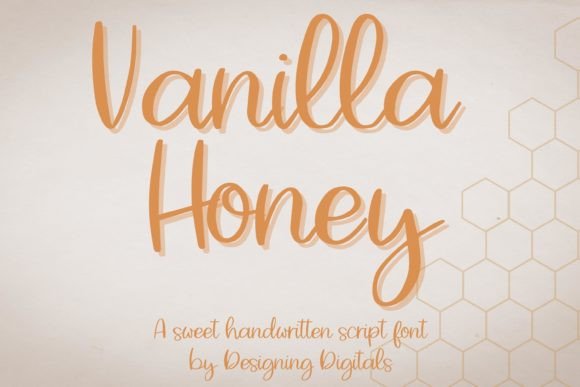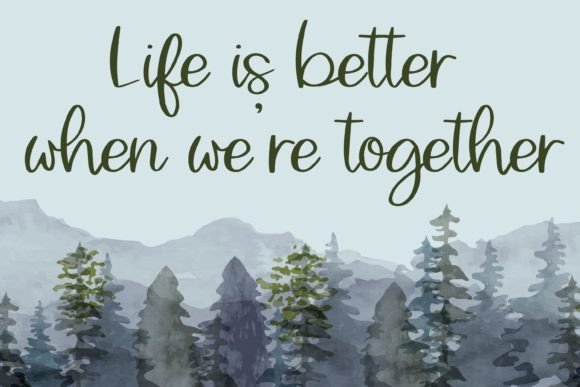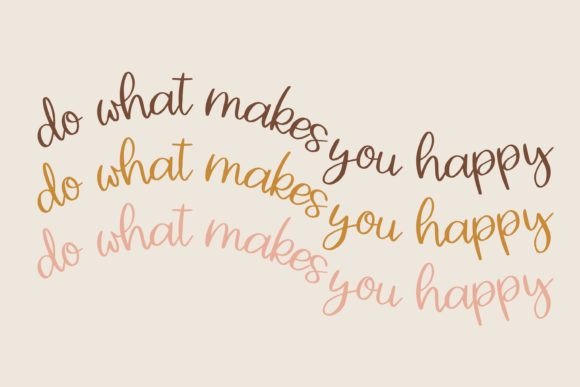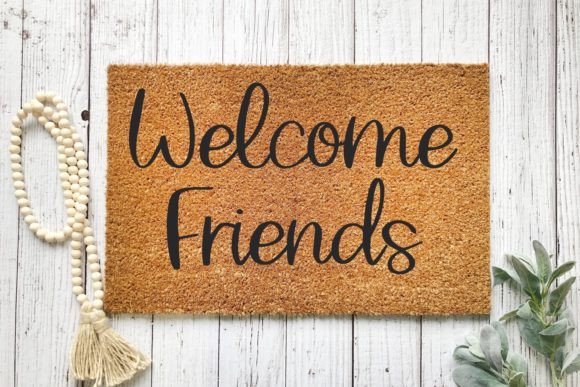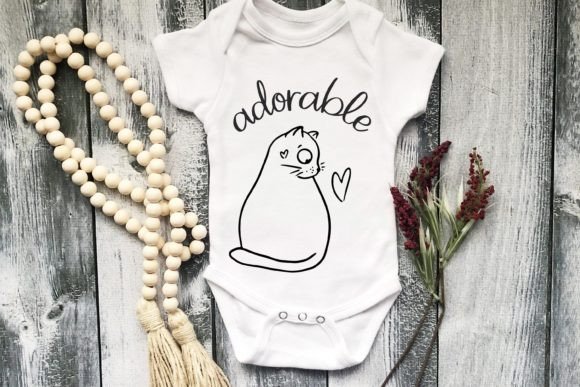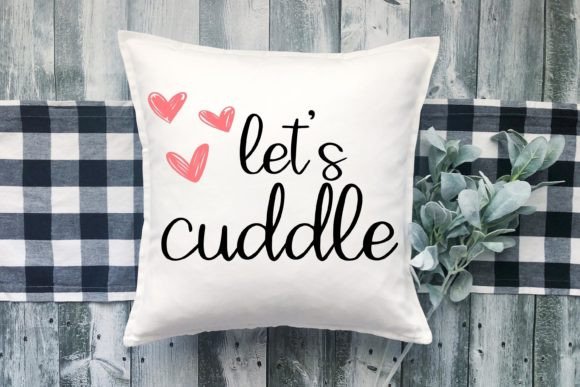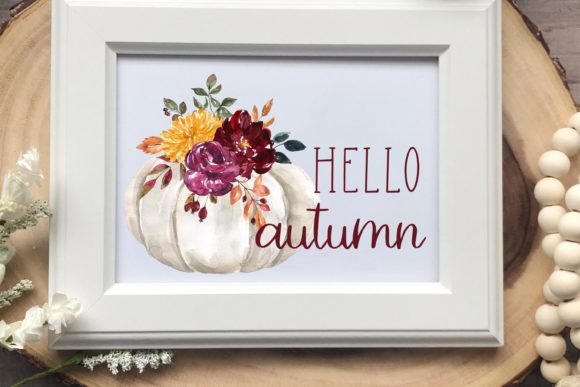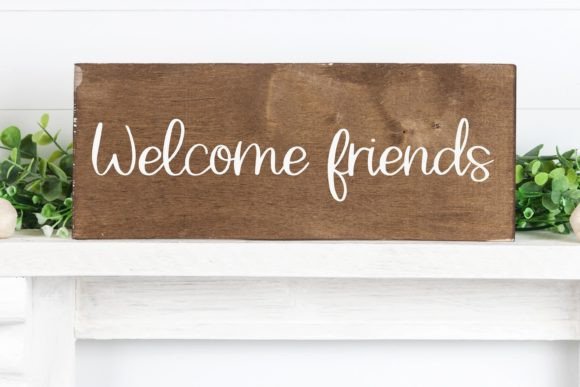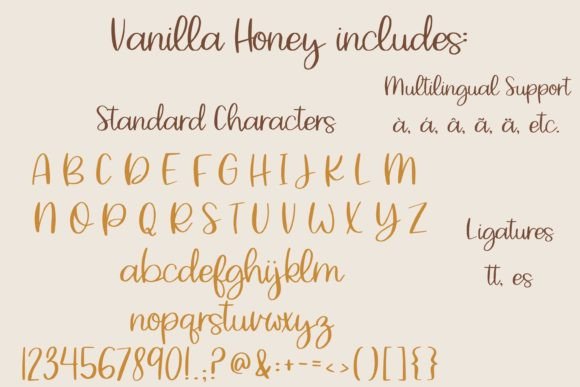
Vanilla Honey Font
About Vanilla Honey Font
**Vanilla Honey**: *Where Sweetness Meets Handwritten Charm*
Vanilla Honey isn’t just a font; it’s a delightful blend of sweetness and handwritten charm meticulously designed to elevate your creative projects. With its flowing script and playful characters, this font effortlessly adds a touch of whimsy and warmth to your designs, making it perfect for a wide range of applications.
What sets Vanilla Honey apart is its remarkable ability to seamlessly combine sweetness with handwritten charm. The font’s carefully crafted characters exude an air of friendliness and authenticity, making it an ideal choice for projects that require a touch of playfulness and creativity. Vanilla Honey is the font that can effortlessly enhance your logos, greeting cards, t-shirt designs, stickers, social media graphics, and any other craft or project, ensuring they stand out with a delightful sense of style and charm.
Vanilla Honey strikes the perfect balance between a fresh aesthetic and a warm demeanor, making it a versatile and heartwarming choice for projects that aim to engage and delight.
In logo design and branding, Vanilla Honey adds a unique sense of character and approachability, giving your brand a distinctive and memorable signature. It possesses the power to convey a brand’s friendliness and values while infusing an element of irresistible sweetness.
For various design projects, from greeting cards to t-shirt designs, the font’s playful characters enhance the visual appeal of your content, making it more captivating and memorable. Whether you’re working on social media posts or any other creative endeavor, Vanilla Honey brings an air of delightful sweetness and handwritten charm to your projects.
One of Vanilla Honey’s most remarkable qualities is its adaptability. It can transition seamlessly from a casual and relaxed tone to a more lively and spirited one, making it suitable for a wide range of creative applications. Its ability to evoke both sweetness and handwritten charm ensures that it remains a cherished choice for designers and creators across diverse industries.
In summary, Vanilla Honey is more than just a font; it’s a design asset that masterfully combines sweetness with handwritten charm. Its unique blend of flowing script and creative allure positions it as an indispensable tool for anyone seeking to infuse their creative projects with a touch of style and charm. Embrace the sweetness and handwritten charm of Vanilla Honey, and watch your designs come to life with joy and artistic flair, making it the perfect choice for any craft or project you have in mind!